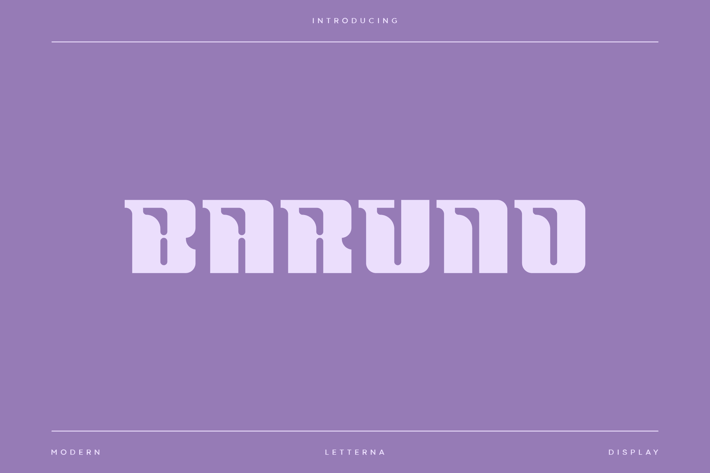
Baruno - Modern Sport Font
Baruno is a sports font, designed to draw attention and highlight any project that calls for a bold, powerful look, built with all caps to created a vibrant touch to your designs. Perfect for sports designs, logos, headlines, posters, games, book covers, titles and many other projects. Add this font to your creative ideas and watch how it makes it stand out!